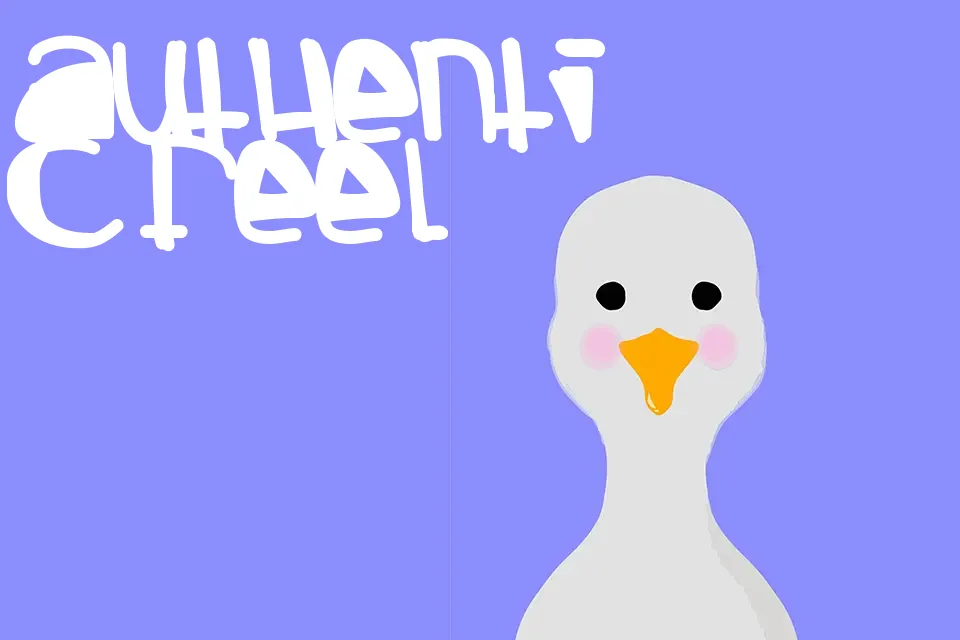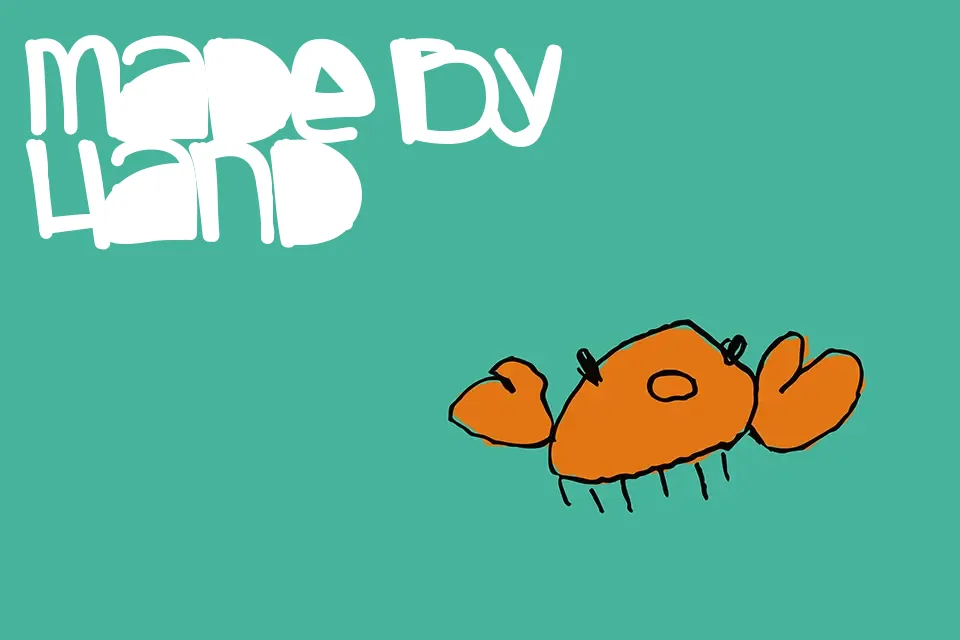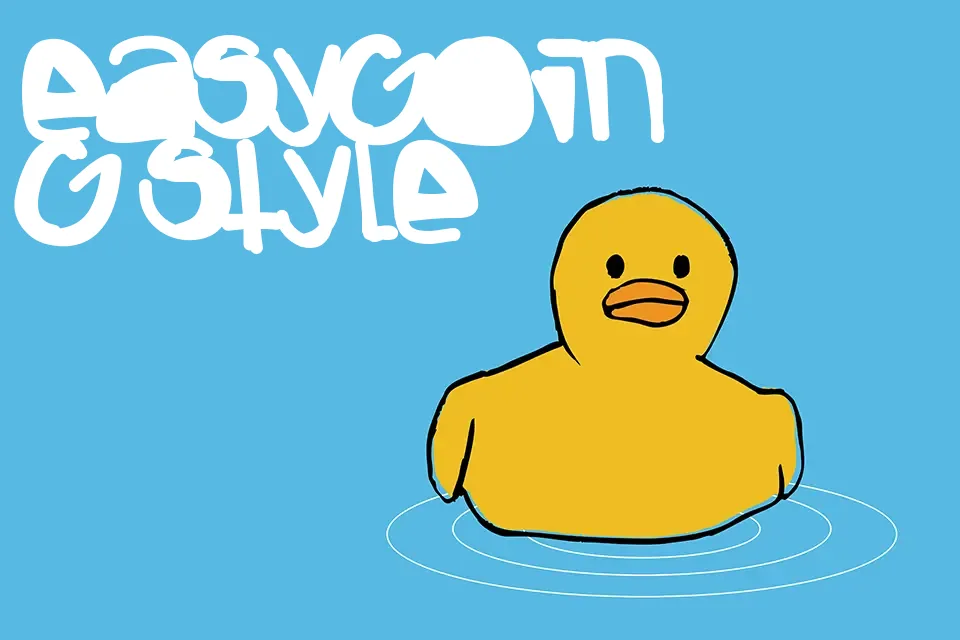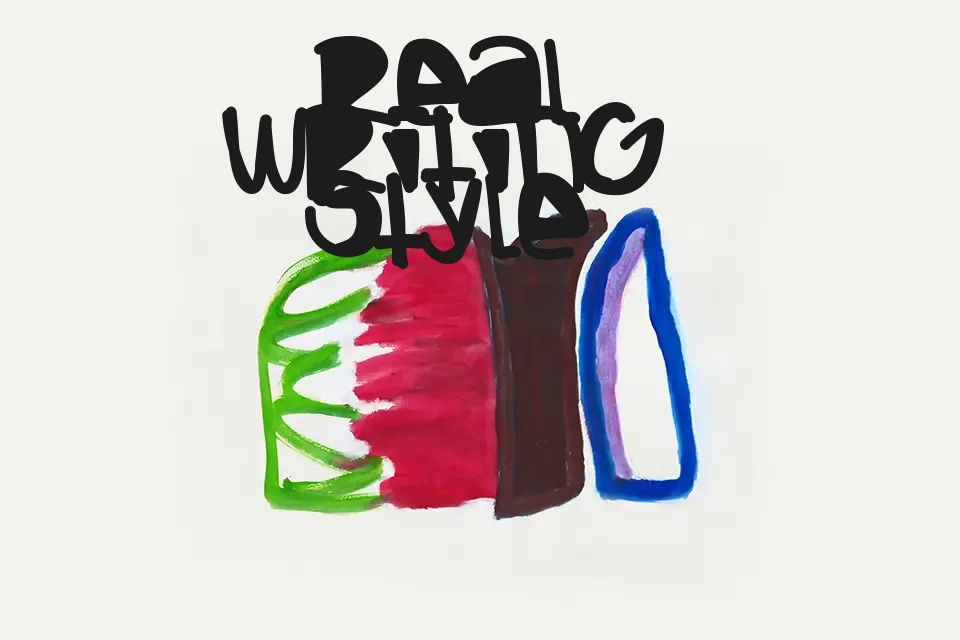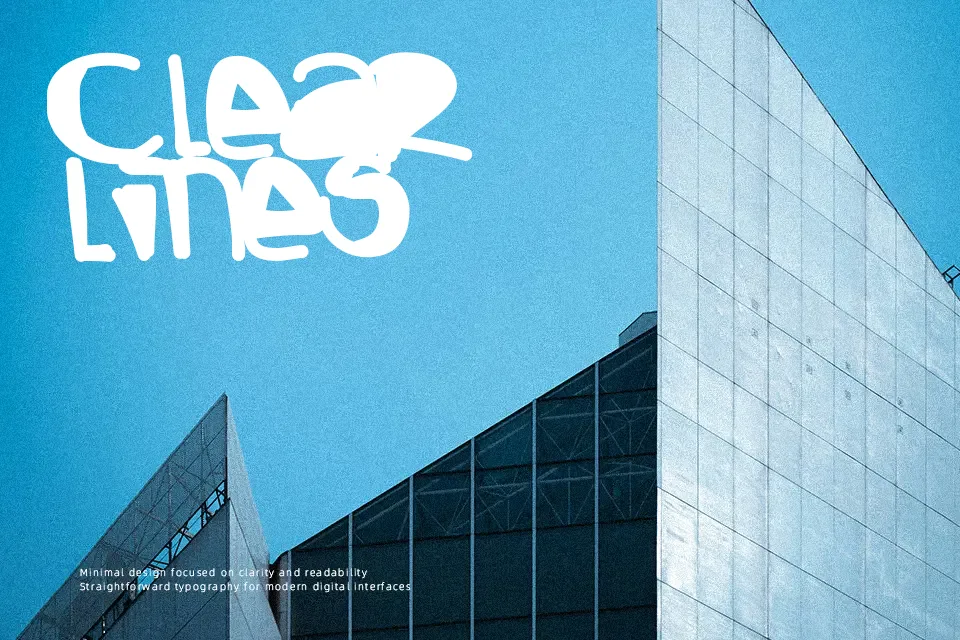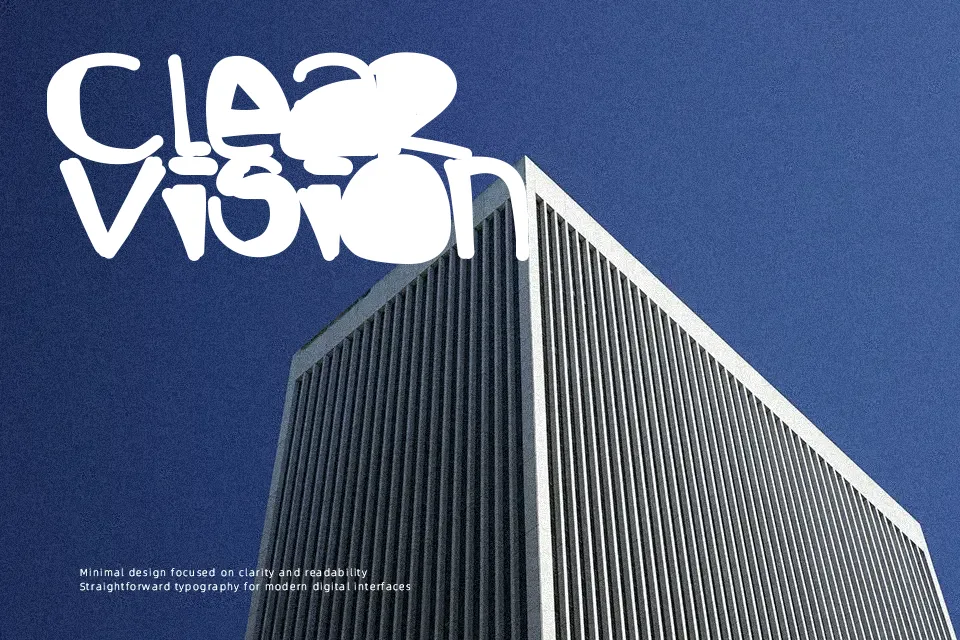
Boing Font
Boing is built on thick, rounded strokes that emphasize a distinctly hand-drawn structure. Its characters share a slightly irregular baseline, creating an energetic and casual impression. The letter spacing remains tight, which maintains the chunky appearance without looking scattered. Aesthetically, this display typeface bypasses formal conventions in favor of a playful, cartoonish vibe. It proves highly effective for lighthearted applications like children’s book covers, vibrant toy packaging, or casual social media graphics that need a friendly voice. On the flip side, the heavy weight and erratic lettering make it difficult to read in dense paragraphs or serious corporate documents. Next to traditional marker fonts, Boing offers a much softer, more animated personality.
Playful children’s book titles
Informal event posters
Toy or game packaging designs
Vibrant social media headers
Lengthy body text paragraphs
Formal corporate branding
Minimalist or luxury design contexts
Perfect for kids, packaging, and poster, with a cute and cartoon style.